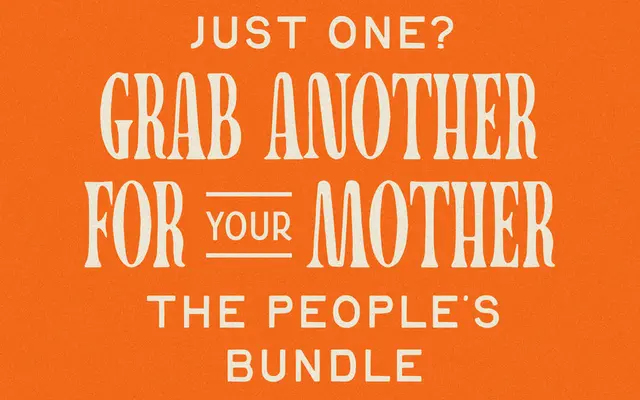
The People's Bundle
A bundle of six display typefaces from Taylor Penton, each with a distinct hand-drawn or expressive character suited to branding and visual identity work.
Six fonts sold together at a flat price: Taxi Driver, Misprint, Birdie, Road Runner, Yamas! and Milkbar. Each covers uppercase letters, digits, full punctuation and over 50 languages, delivered in OTF and WOFF/WOFF2 formats. The range sits comfortably in logo, packaging and social media work where personality and legibility at large sizes matter more than typographic finesse.
A collection of six distinct display typefaces spanning hand-drawn, decorative and expressive styles, best grouped under display as none are text or body faces.